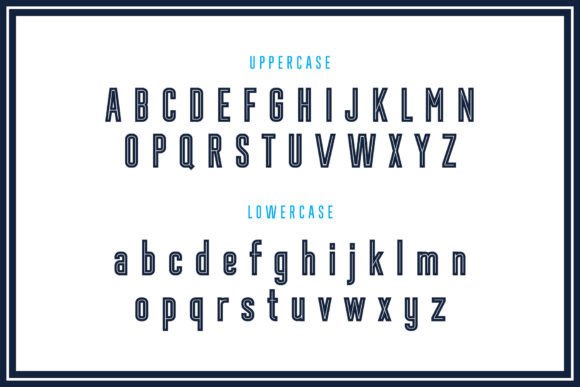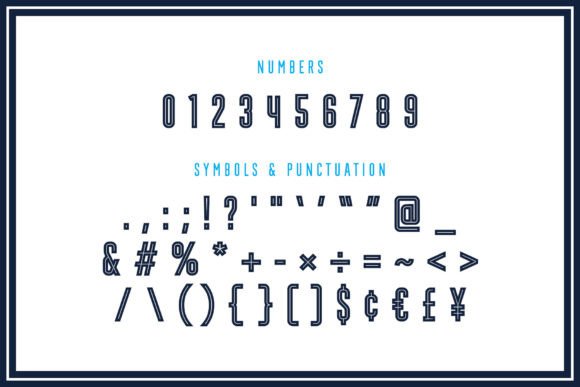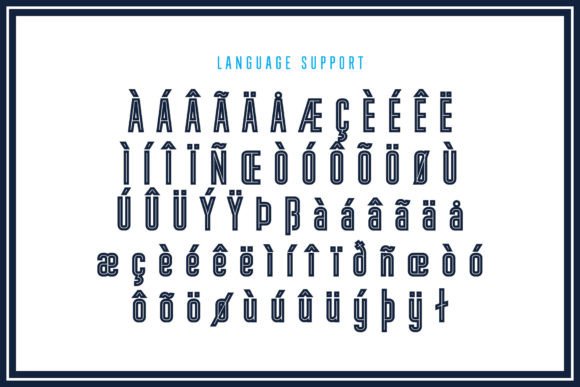
Unleashing the Spirit of Jersey Font
As a designer, there’s nothing quite like the thrill of discovering a new font that perfectly captures the essence of your creative project. It’s like stumbling upon the perfect color palette or a striking image – it all comes together to elevate your work to the next level. For me, that moment came when I stumbled upon the Jersey Font, a stunning sans-serif typeface that screams ‘high-energy’ and ‘sports chic.’
The Jersey Font is more than just a pretty face; it’s a valuable design resource that can add a touch of sophistication to your titles and headlines. With its condensed, athletic feel, it’s the perfect choice for any project that needs a bit of a boost. Whether you’re working on a creative campaign or designing a sports-themed website, the Jersey Font is sure to be a game-changer.
Key Features of Jersey Font
- High-quality, elegant font perfect for creative projects, available for free download.
- Unique characteristics include its modern and sleek design, making it ideal for branding, logos, and other creative projects.
- Designed to be versatile and adaptable, the Jersey Font can be used in a range of contexts, from digital design to print media.
Honest Review: Jersey Font
As a designer, I’m always on the lookout for high-quality fonts to enhance my creative projects. Recently, I stumbled upon the Jersey Font, which promises to deliver a unique and stylish design experience. Let’s dive in and see how it fares.
- ✨ High-quality design that exudes a sense of elegance and sophistication.
- ✨ Wide range of weights and styles to choose from, making it perfect for various design projects.
- ✨ Transparent background, allowing for seamless integration with any design element.
- ⚠️ Some users may find the font’s unique style a bit too bold, which may not suit all design preferences.
Overall, I’m impressed with the Jersey Font’s design quality and versatility. While it may not be perfect, it’s definitely a solid addition to any design resource collection. If you’re looking for a high-quality font to elevate your creative project, the Jersey Font is definitely worth considering. Just be aware of the potential limitations and make sure it aligns with your design vision.
Common Use Cases for Jersey Font
The Jersey Font is commonly used in creative projects such as logos, brochures, and business cards. It is also used in digital projects such as website headers and social media graphics. The font’s high-quality design makes it suitable for a variety of design needs.